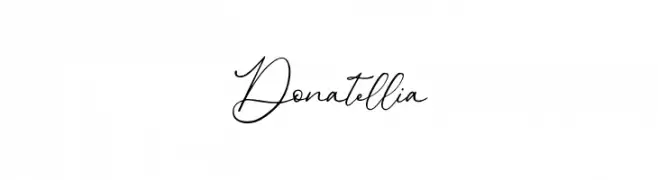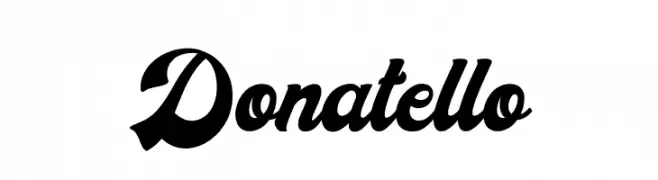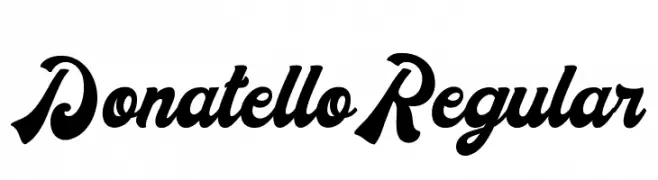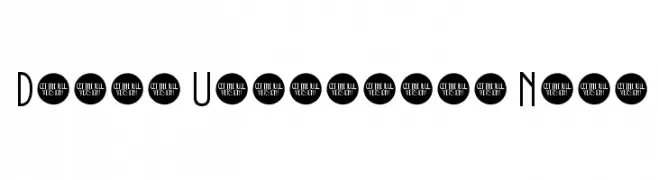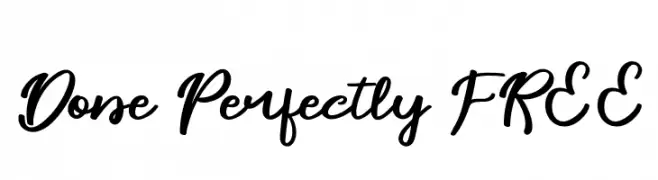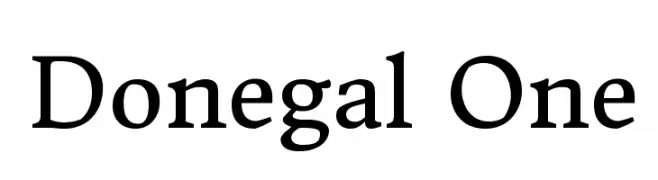
An elegant and flowing script font with graceful curves and artistic flair.
A graceful script font with flowing, interconnected letters and a sophisticated style.
A bold, cursive font with elegant curves and a strong presence.
A bold, dynamic script font with flowing cursive characters.
A bold, dynamic script font with high contrast and flowing characters.
A bold, playful font with chunky, dynamic characters.
A modern, geometric font with tall, narrow letters and clean lines.
A lively and expressive script font with fluid, connected letterforms.
A classic serif font with a modern touch, featuring elegant curves and balanced proportions.